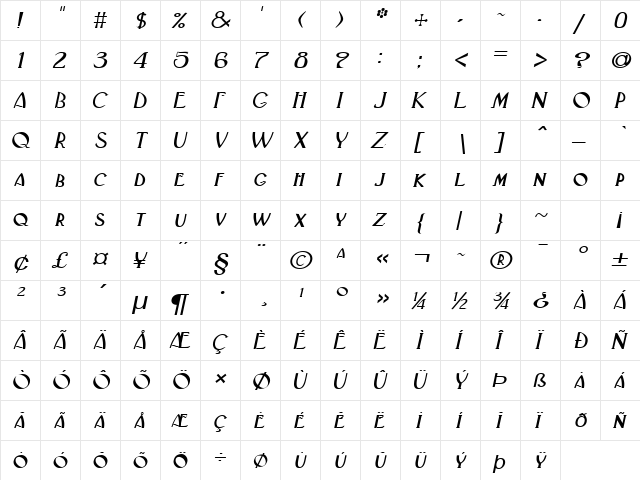
Deco-Extended Italic
Design Context for Deco-Extended Typeface
Deco-Extended is a composed and adaptable typeface that performs quietly and consistently across a wide range of design contexts. The dynamic lean of this cut emphasises speed and emphasis in any layout.
Pro Tip: Use Deco-Extended for emphasis, pull quotes, and subheadings where its slanted energy can add rhythm to the layout.